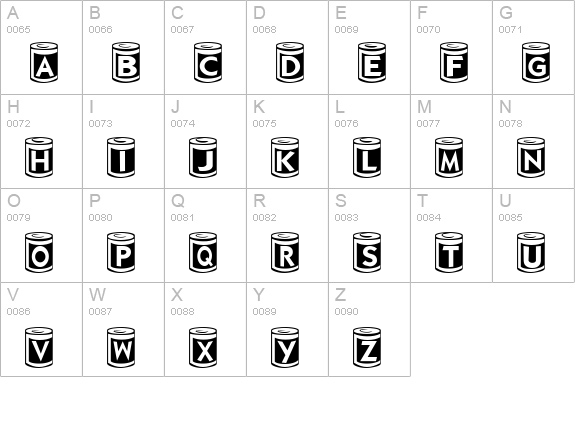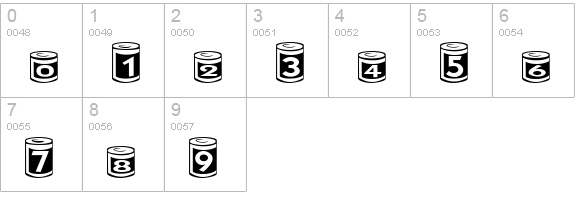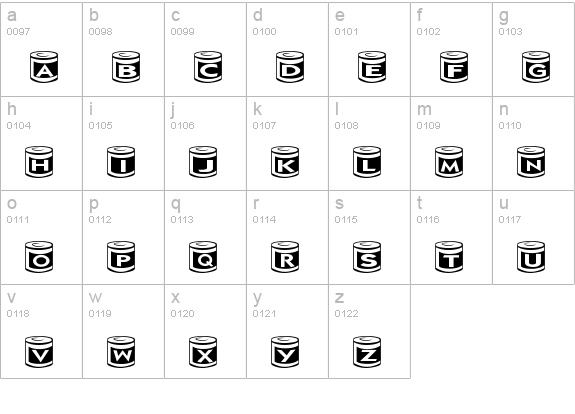
CanGoods Font Details
Introducing CanGoods font, a versatile and modern typeface perfect for all your design needs. This font exudes a sense of elegance and sophistication, making it ideal for branding, packaging, logos, and more. With its clean lines and stylish curves, CanGoods font adds a touch of class to any project. But the best part? CanGoods font is available for free download at FontsMarket.com. That's right, you can elevate your designs with this stunning font at no cost. Don't miss out on this opportunity to enhance your creations with CanGoods font's timeless appeal. Download it now and let your creativity shine!